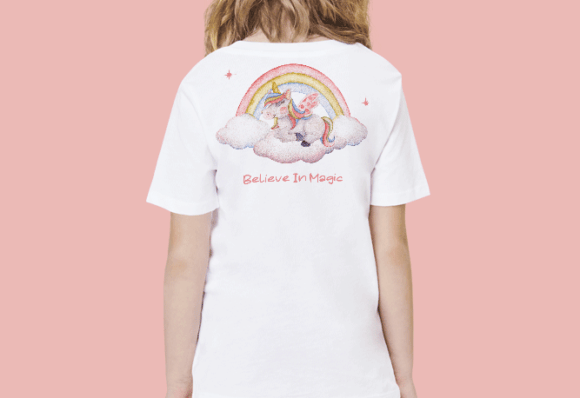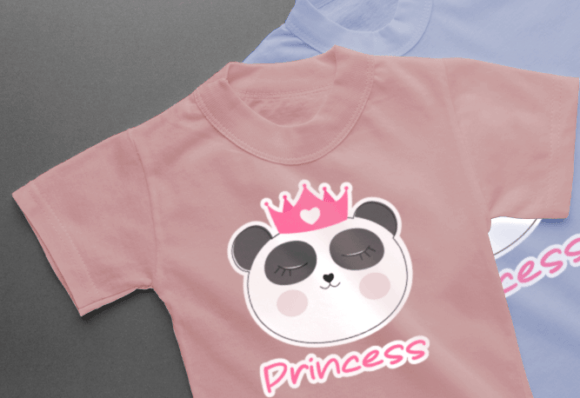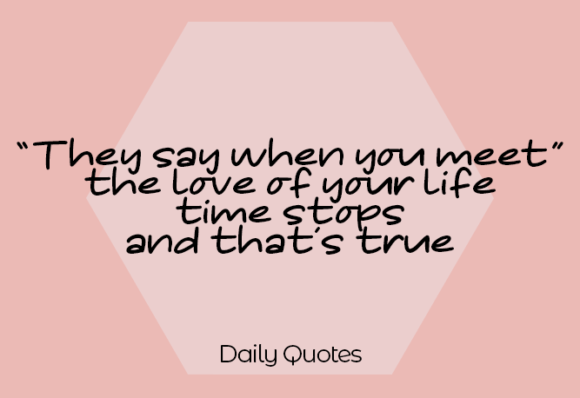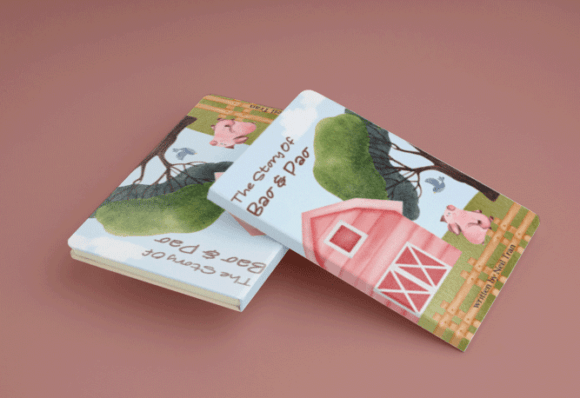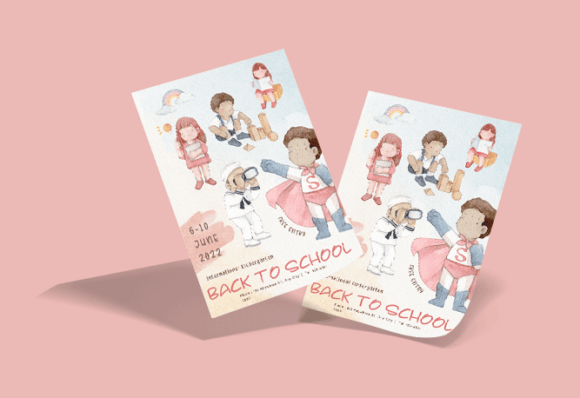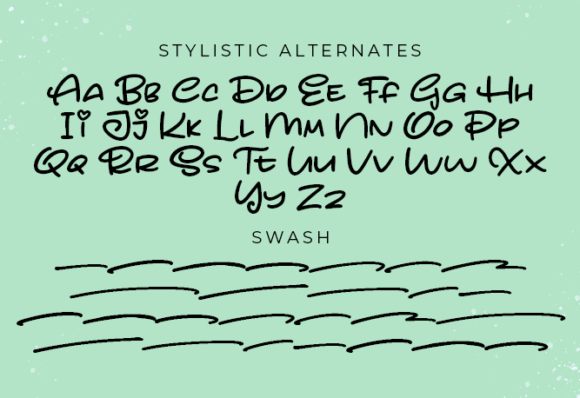
Introducing Greatea Font: The Sweet and Personal Handwriting Font
Are you looking for a font that can add a touch of sweetness and personality to your designs? Look no further than Greatea Font! This beautiful handwriting font is perfect for designers, crafters, and anyone looking to add a personal touch to their projects. In this article, we’ll take a closer look at Greatea Font, its features, and how it can elevate your designs.
A Handwriting Font with a Sweet and Personal Style
Greatea Font is a handwriting font that exudes a sense of warmth and personality. Its natural and unique style makes it perfect for a wide variety of ideas, from logos and branding to packaging and more. The font’s sweet and gentle curves will add a touch of whimsy to your designs, making them stand out from the crowd.
Perfect for Various Purposes
One of the best things about Greatea Font is its versatility. It’s suitable for a wide range of purposes, including:
• Logos: Create a unique and memorable logo for your brand with Greatea Font.
• Branding: Use Greatea Font to add a personal touch to your brand’s identity.
• Packaging: Make your products stand out with beautiful and eye-catching packaging designs.
• Stationery: Add a touch of elegance to your stationery designs with Greatea Font.
• Digital products: Use Greatea Font to create engaging and visually appealing digital products.
Greatea Font is PUA (Private Use Area) encoded, which means you can access all of the amazing glyphs and ligatures with ease. This encoding allows you to use the font’s special characters, such as swashes and alternates, without any hassle. With PUA encoding, you can:
• Access a wide range of glyphs and ligatures.
• Use the font’s special characters to add visual interest to your designs.
• Create unique and custom designs with ease.
Why Choose Greatea Font?
So, why should you choose Greatea Font for your designs? Here are just a few reasons:
• Unique and personal style: Greatea Font has a one-of-a-kind style that will add a touch of personality to your designs.
• Versatility: The font is suitable for a wide range of purposes, from logos to packaging.
• Easy to use: Greatea Font is PUA encoded, making it easy to access the font’s special characters.
• High-quality design: The font is designed with high-quality and clarity in mind, ensuring that your designs look professional and polished.
Tips for Using Greatea Font
Here are a few tips for using Greatea Font in your designs:
• Experiment with different sizes and colors to find the perfect combination for your design.
• Use the font’s special characters to add visual interest to your designs.
• Pair Greatea Font with other fonts to create a unique and custom look.
• Use the font’s ligatures and swashes to add a touch of elegance to your designs.
In conclusion, Greatea Font is a beautiful handwriting font that is perfect for designers, crafters, and anyone looking to add a personal touch to their projects. With its sweet and personal style, versatility, and PUA encoding, Greatea Font is a great choice for a wide range of purposes. Whether you’re looking to create a unique logo, add a touch of elegance to your packaging, or create engaging digital products, Greatea Font is the perfect choice. So why wait? Download Greatea Font today and start creating stunning designs!